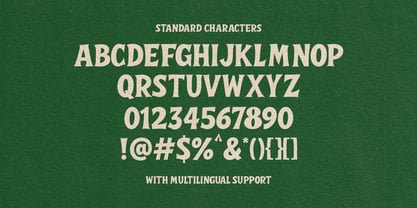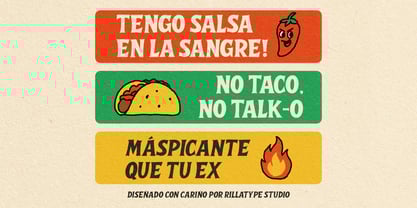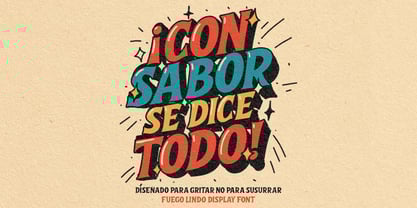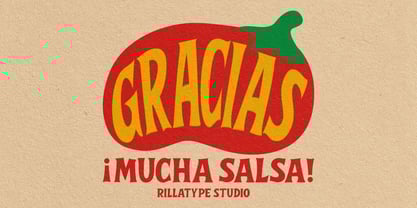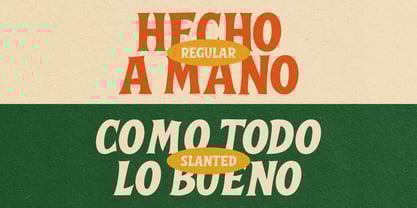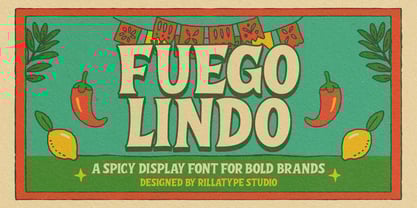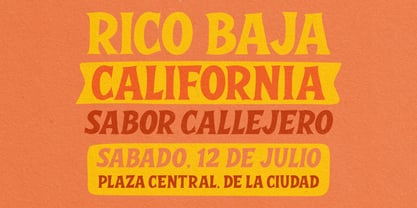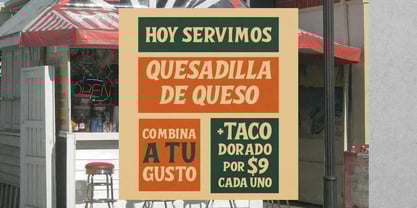
Fuego Lindo
by Rillatype
The Fuego Lindo Font Family was designed by Gustian Agung Asprilla and published by Rillatype. Fuego Lindo contains 2 styles and family package options.
Fuego Lindo is a bold display typeface inspired by the spirit of Mexican street food, hand-painted signs, and the vibrant energy of local fiestas. With chunky proportions, irregular curves, and a playful folkloric touch, Fuego Lindo brings a flavorful punch to any design that needs to shout with character.
Whether you're branding a food stall, designing a poster for a festival, or adding heat to a packaging label, Fuego Lindo Regular and its expressive Slant version are ready to spice things up.
Crafted for titles, logos, signage, and anything that deserves to be seen (and felt), Fuego Lindo is more than a font — it’s a fiesta in every letter.
Font Features:
- All caps
- Latin characters
- Numerals & punctuation
- 2 styles: Regular & Slant
Great for headlines, packaging, branding, street visuals